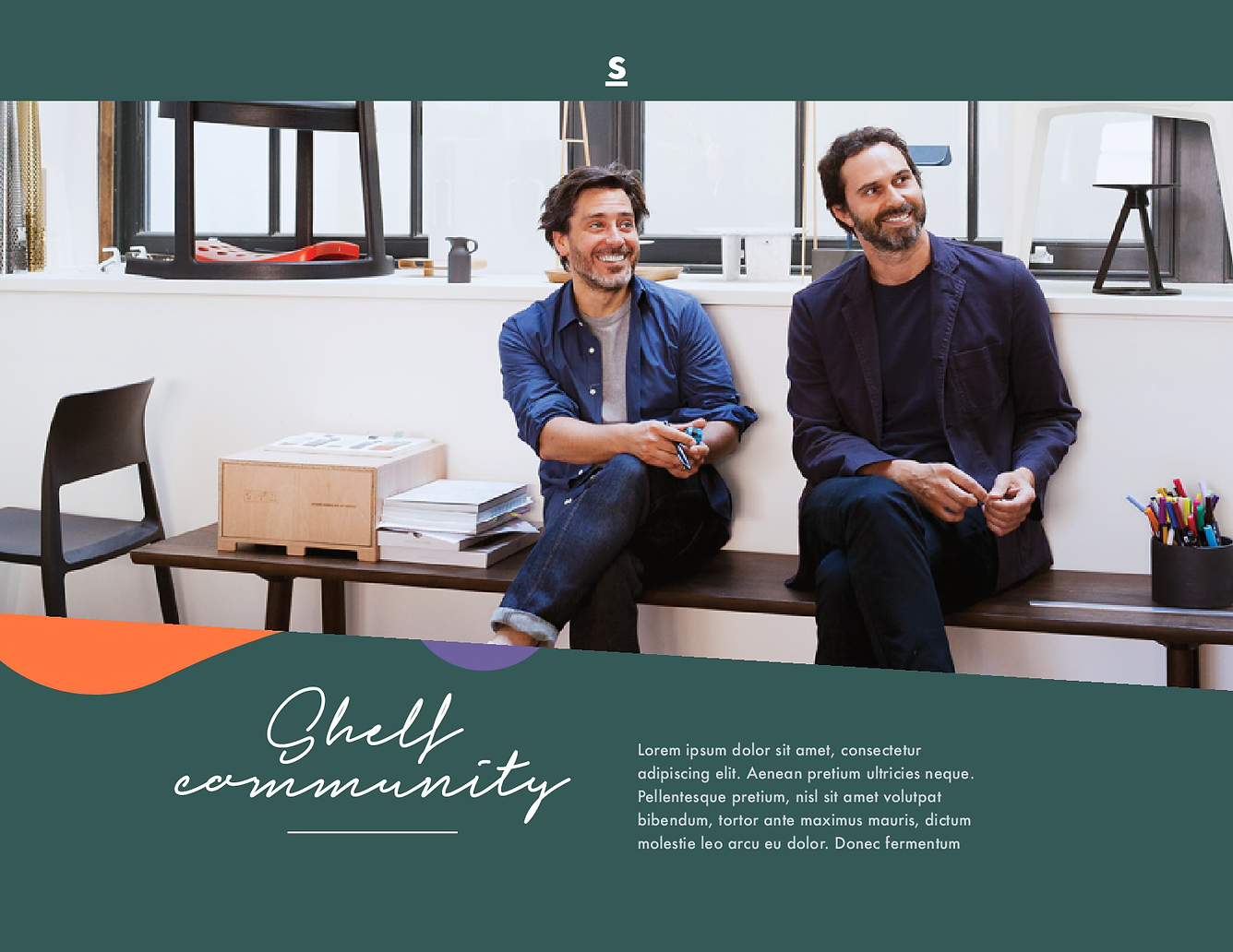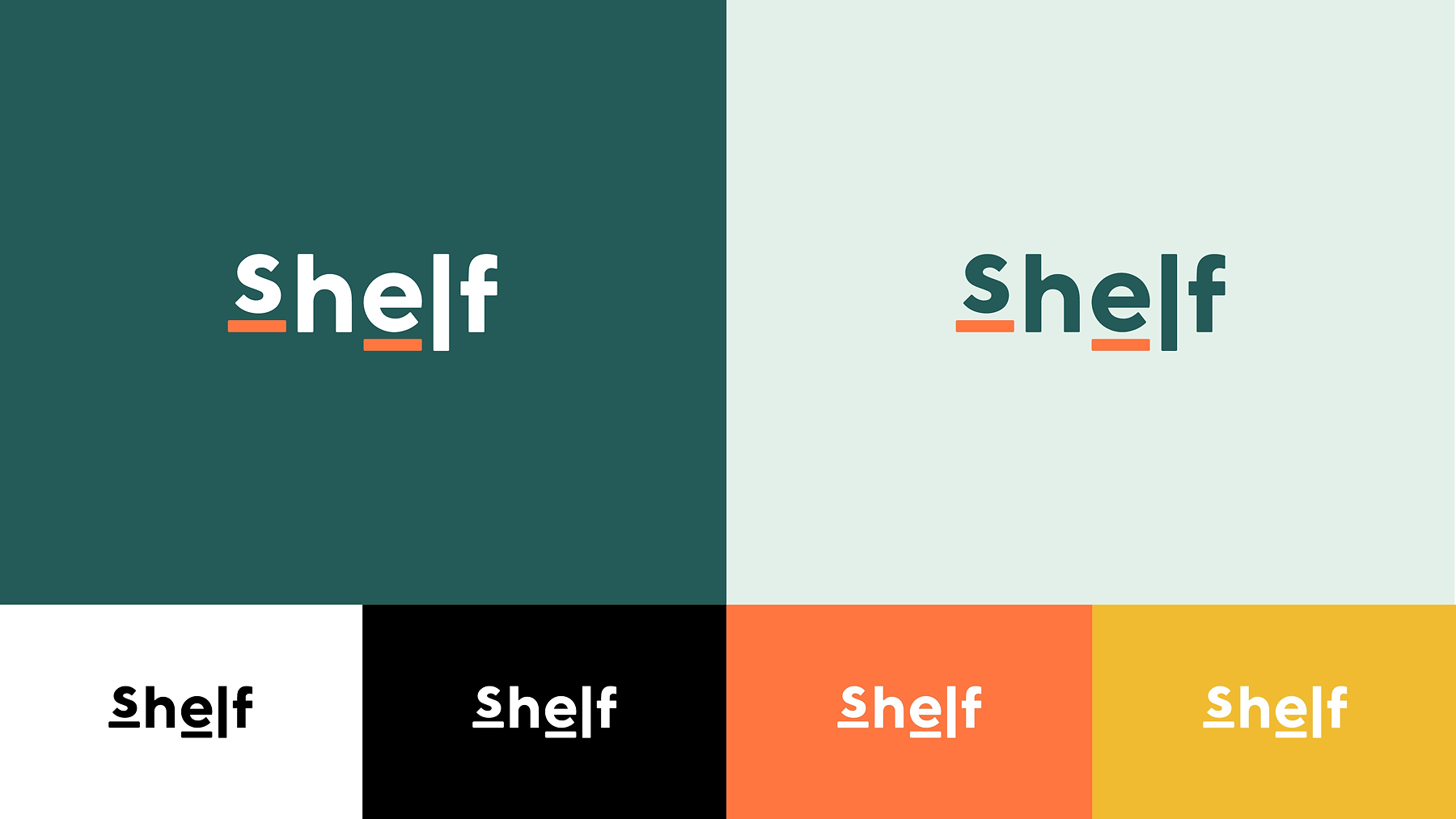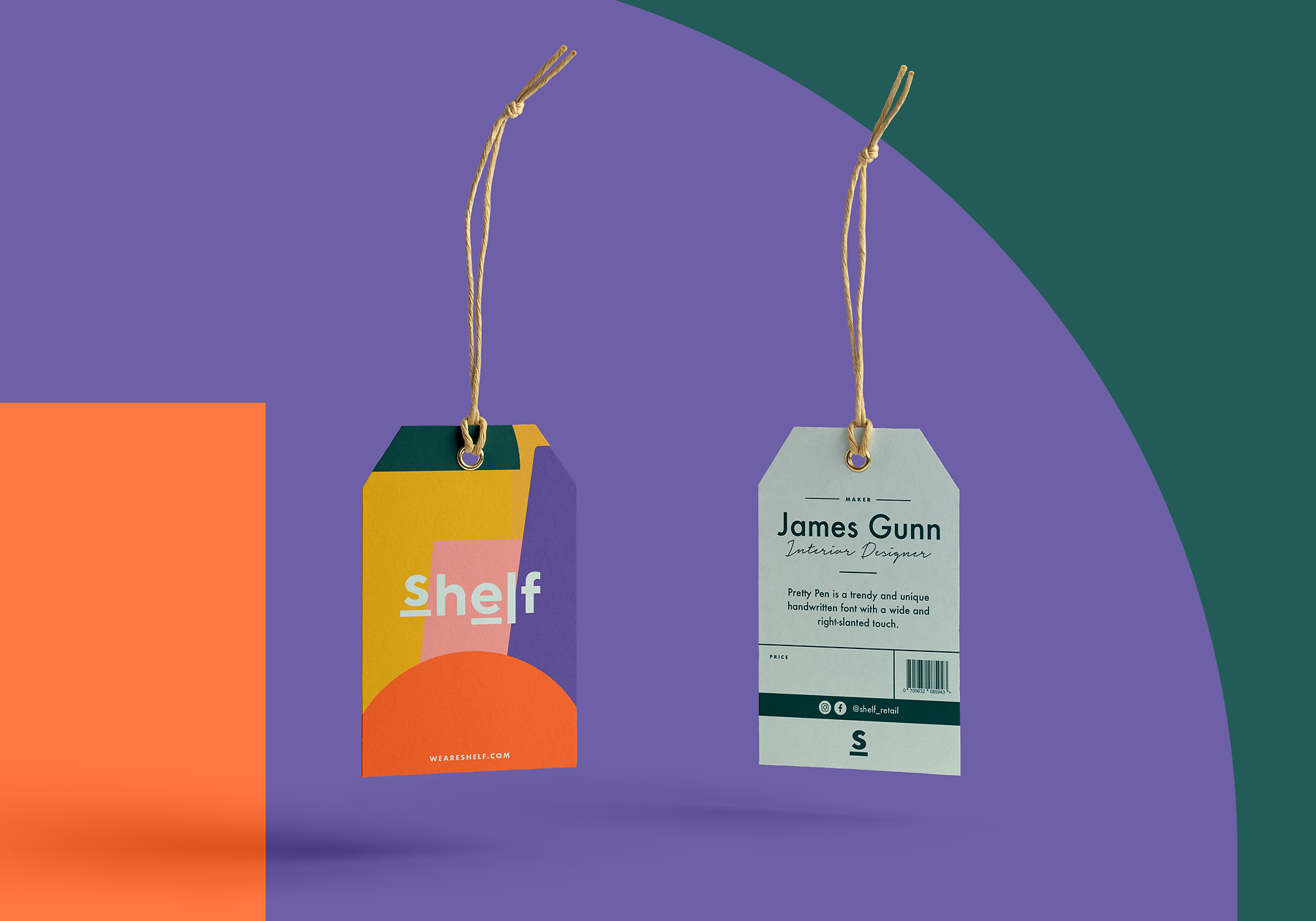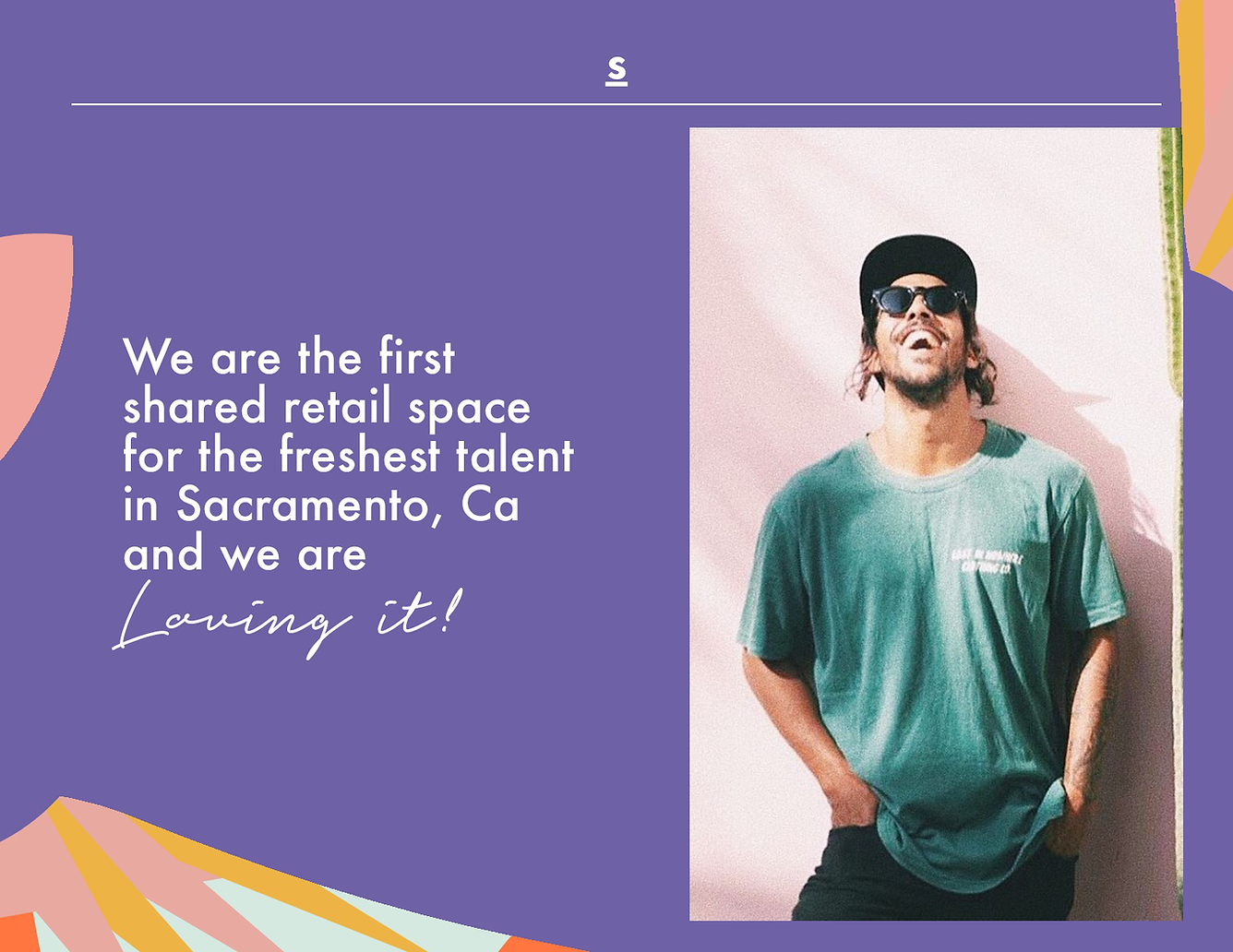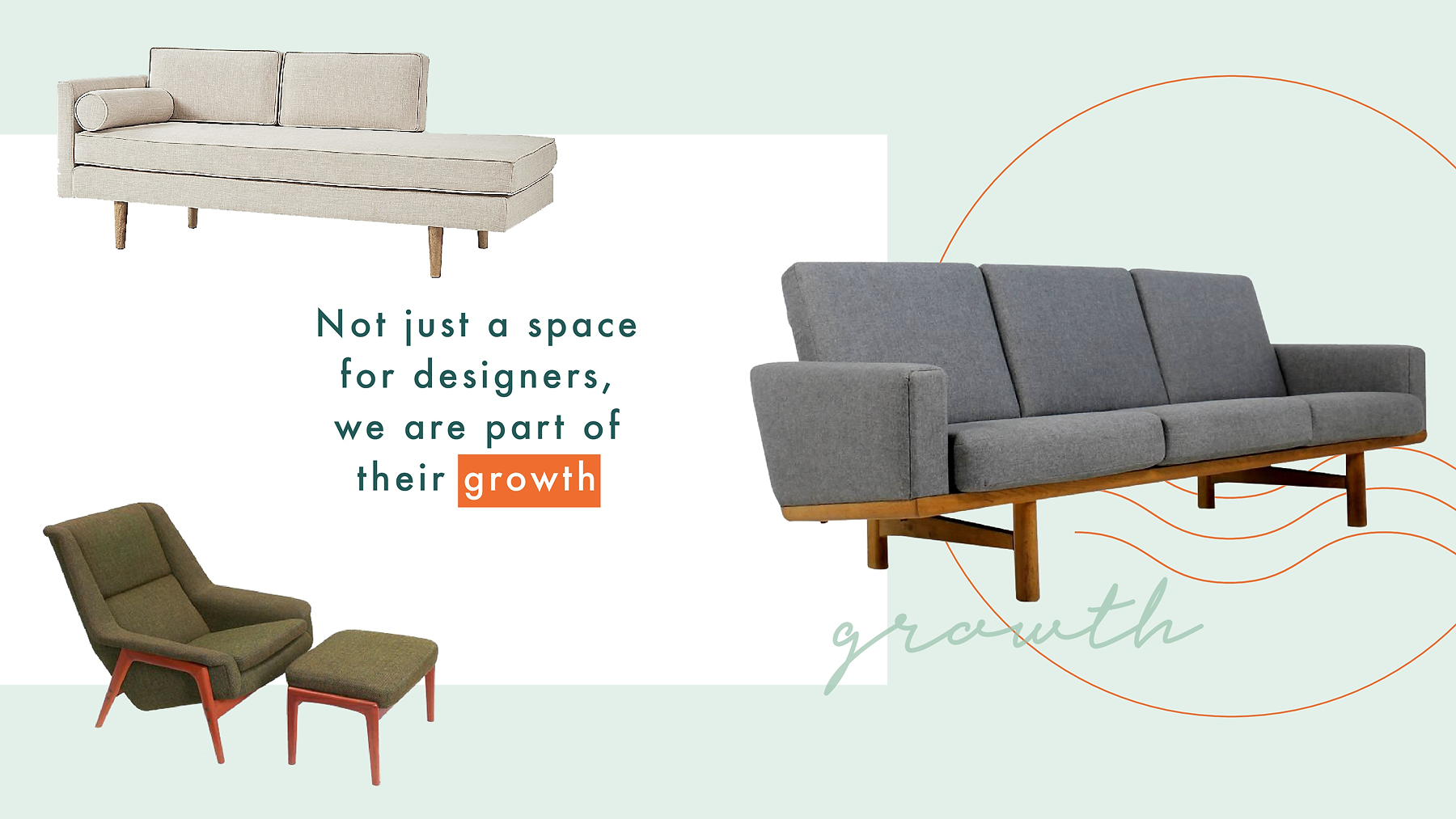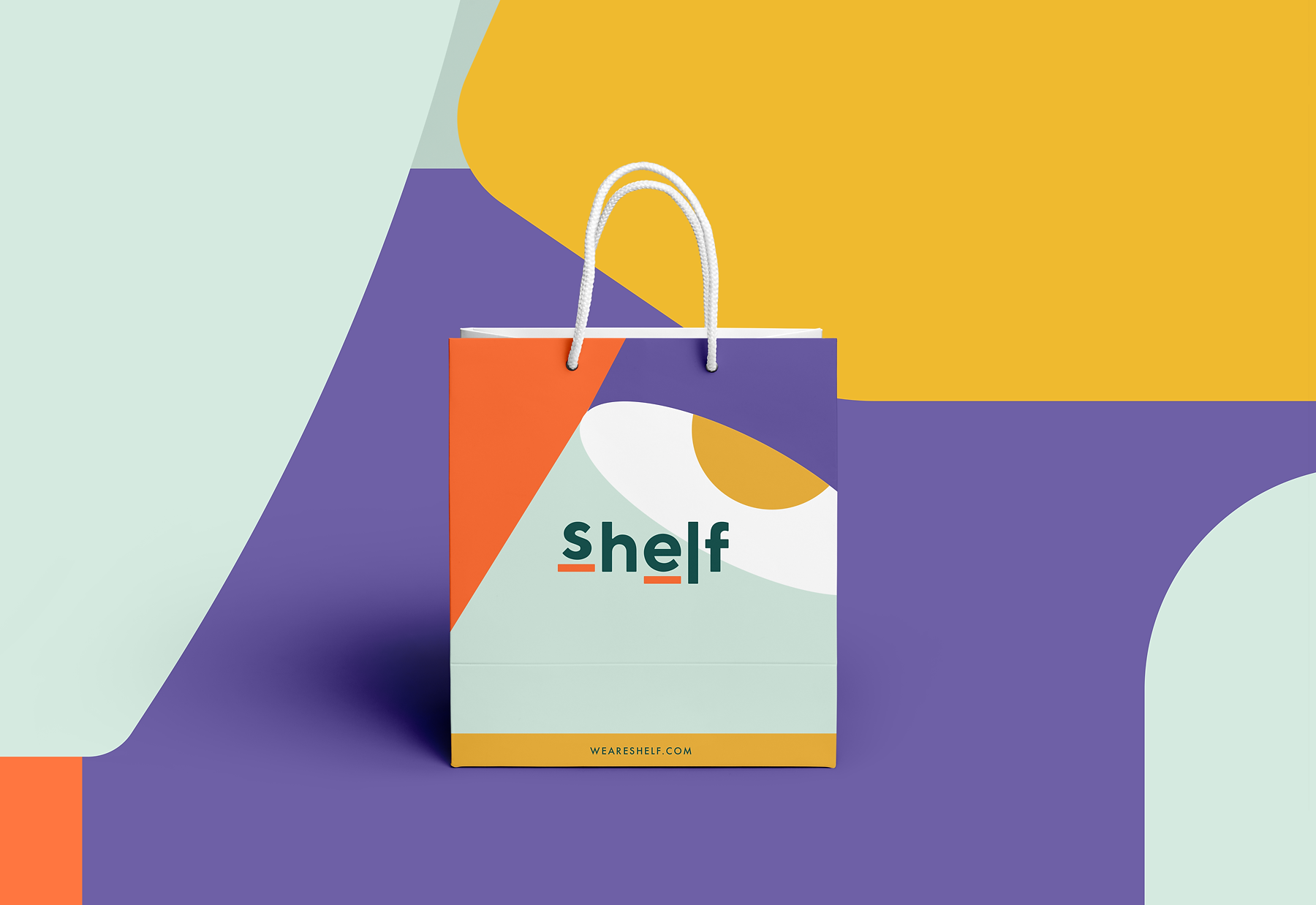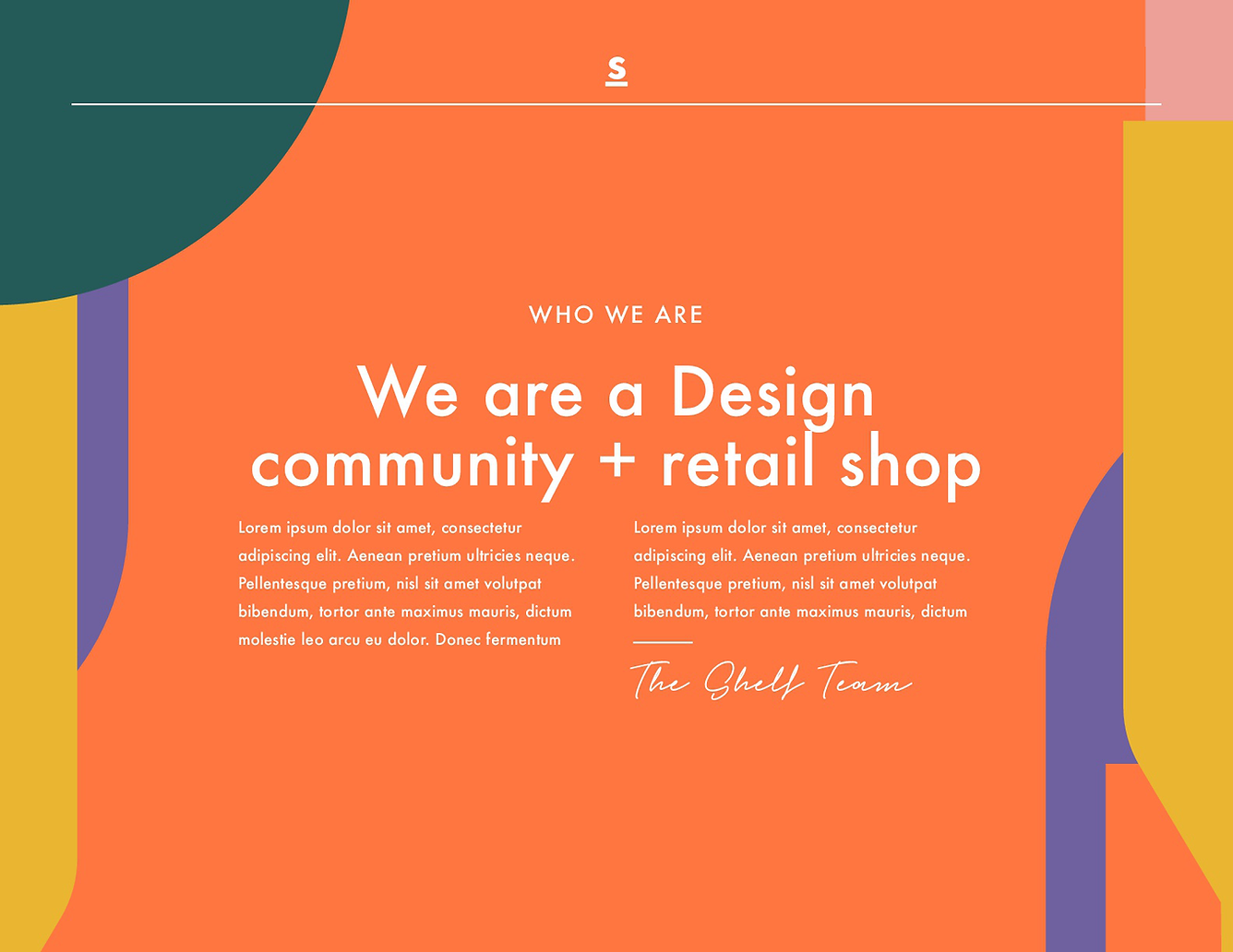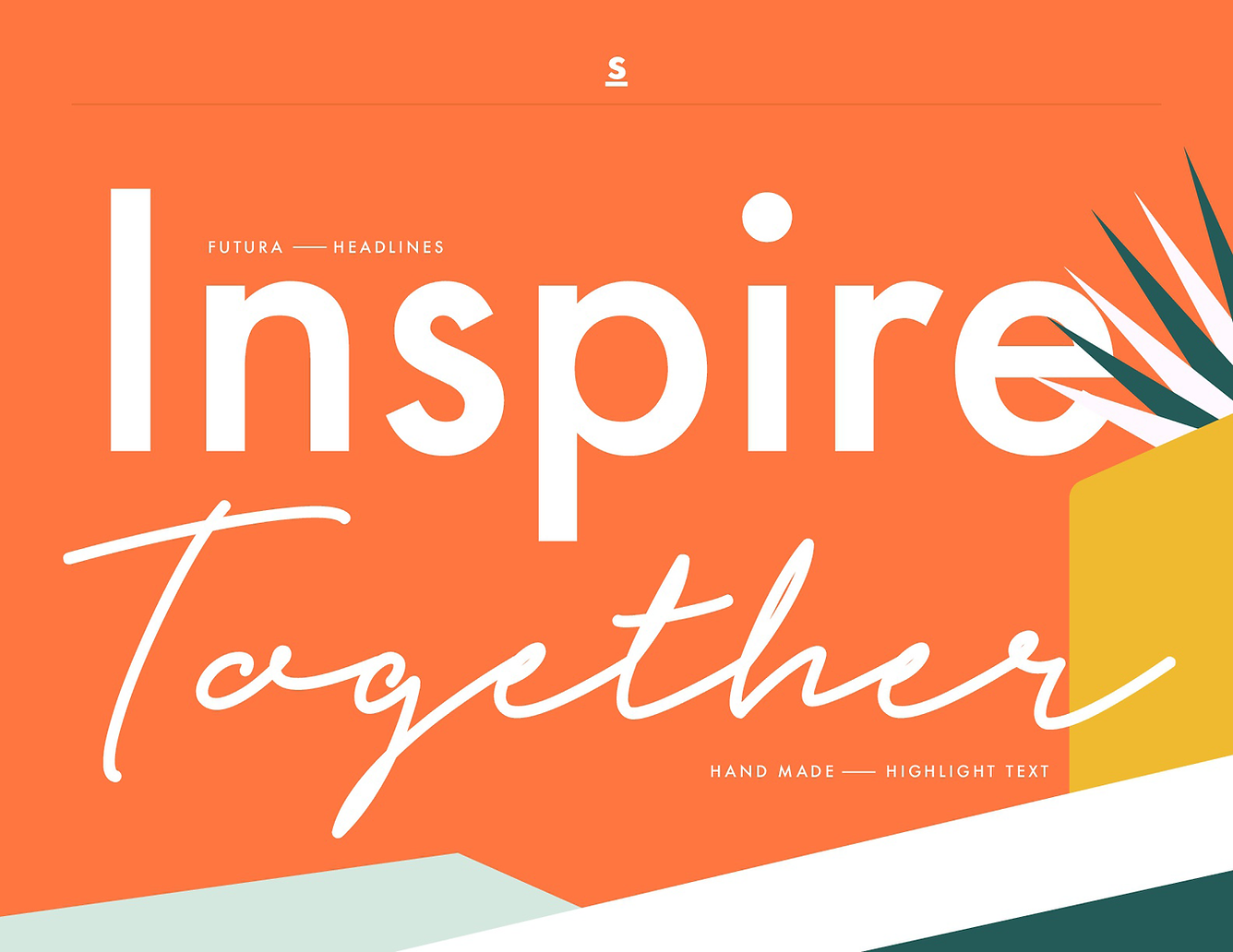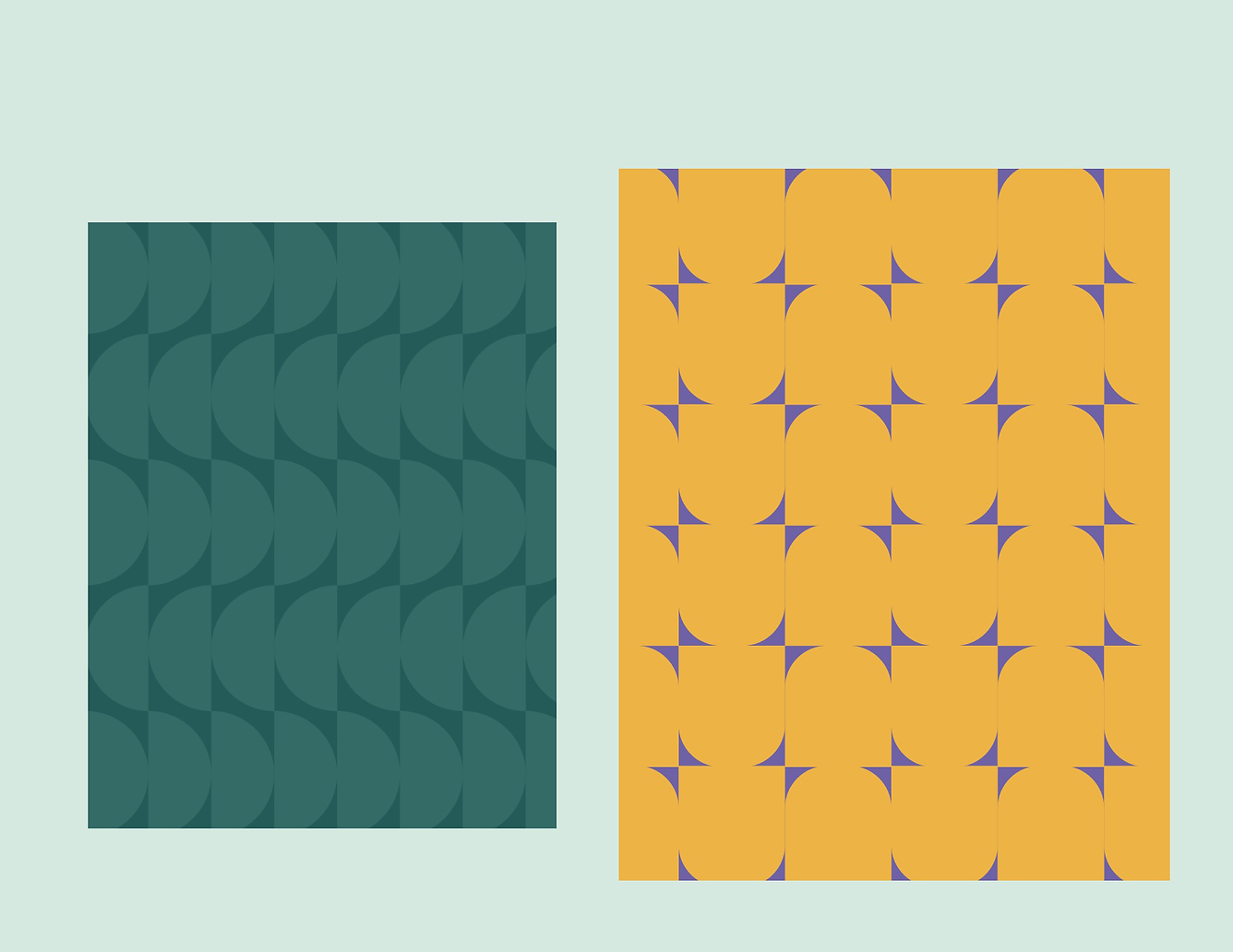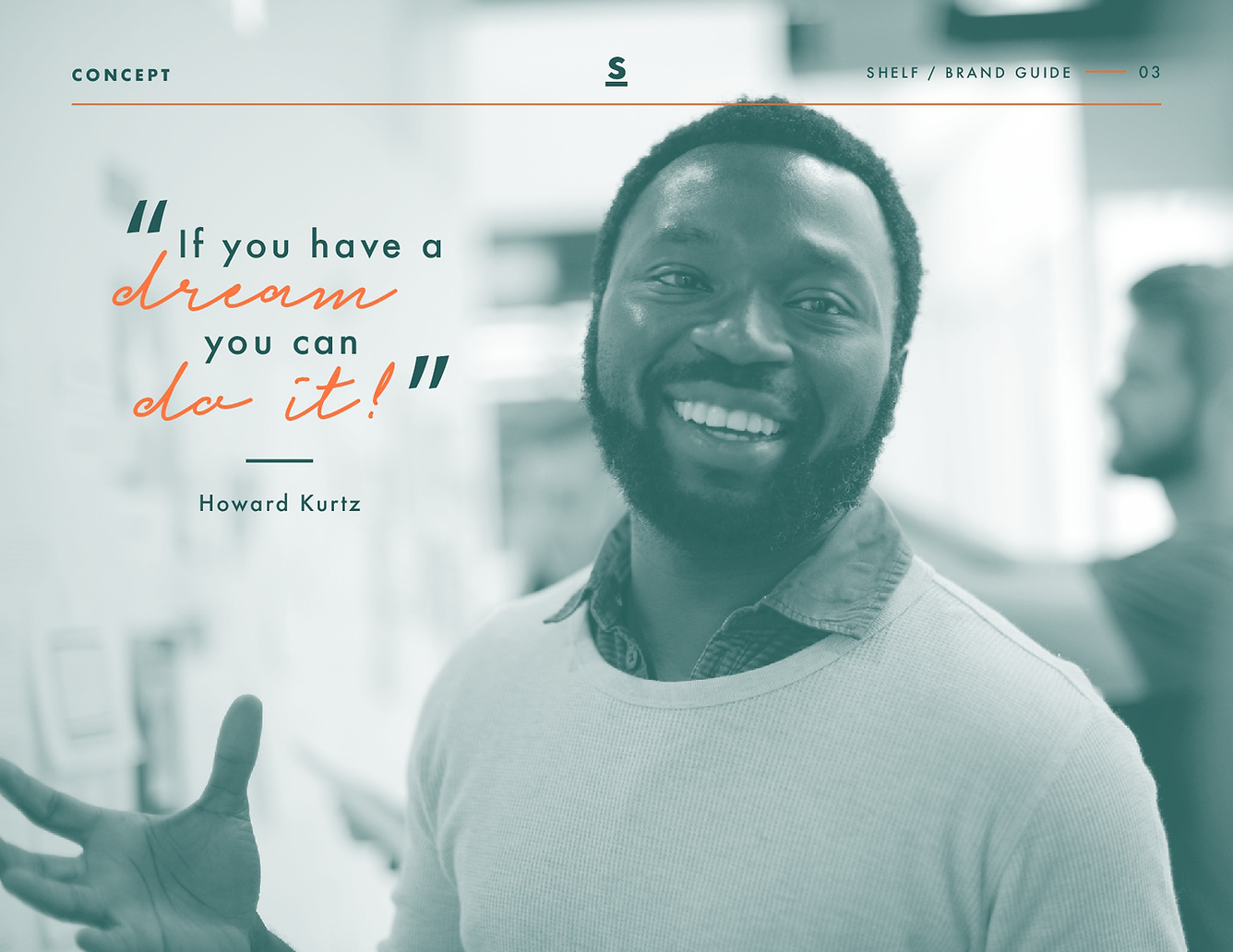
SHELF retail shop
Shelf is a design community and shared retail space created to showcase emerging brands, artists, and makers
Founded by William and Gaby, both creatives with a strong eye for talent, the vision was to build a place where art, design, and community could coexist under one roof.
Together, we developed a standalone brand identity that highlights products while reflecting the creative and collaborative spirit of the community. The visual system combines playful geometric compositions, abstract shapes, bold color pairings, and contrasting typography to create a vibrant and expressive brand language.
The identity was designed to feel modern, welcoming, and dynamic across multiple touchpoints, including packaging, signage, editorial layouts, social content, and retail applications. Rather than overpowering the products themselves, the system acts as a curated backdrop, allowing different creators and styles to coexist naturally within the brand.
Some product imagery used within the mockups was sourced from external websites, as no creators had officially joined the space at the time the project was developed.